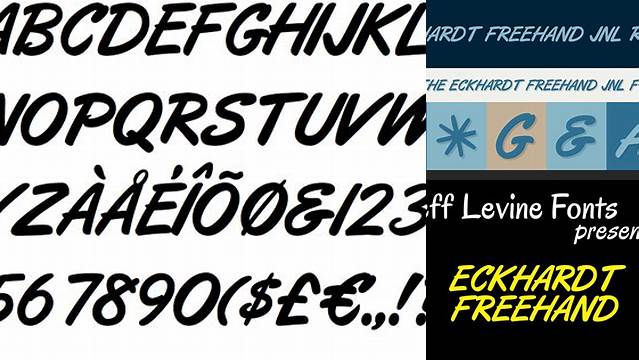
Hey guys! Are you on the hunt for the Eckhardt Freehand JNL font download? You've landed in the right place! This article is your one-stop shop for everything you need to know about this awesome font. We'll dive deep into its features, how to snag it, and even explore some cool ways to use it. Get ready to unleash your inner designer with this fantastic font!
Eckhardt Freehand JNL: What Makes It Special?
Alright, let's get down to brass tacks. Eckhardt Freehand JNL is a font that's got serious character. It's got that cool, hand-drawn vibe that instantly adds a touch of personality to anything you're working on. Think of it as the font equivalent of a perfectly worn-in leather jacket – it just oozes style. The beauty of this font lies in its imperfections, the slight variations in each letter that give it that authentic, human touch. In a world of clean, crisp fonts, Eckhardt Freehand JNL stands out like a bold statement. It's the kind of font that makes you want to grab a pen and start creating. It's perfect for projects where you want to convey a sense of creativity, playfulness, or a touch of vintage charm. From logos and branding to posters, social media graphics, and even website headings, this font adds a unique flair that's hard to ignore. Its versatility allows it to be used in a wide range of applications, making it a valuable asset for designers and creatives alike. Imagine the possibilities! You could use it for a coffee shop's menu, a quirky blog's header, or even a cool design for a skateboard deck. The options are truly endless. The font's informal nature makes it incredibly inviting, making it a great choice for projects aimed at a younger audience or those seeking a relaxed and approachable aesthetic. The way the letters flow and connect creates a visual rhythm that's both engaging and easy on the eyes. It's a font that invites you in and encourages you to explore the message being conveyed. Eckhardt Freehand JNL is more than just a font; it's a statement. It's a way to inject personality and character into your designs, setting them apart from the crowd. If you're looking to add a touch of uniqueness and handcrafted charm to your work, this font is definitely worth considering. It's a fantastic tool for bringing your creative visions to life. With its hand-drawn aesthetic and versatile application, Eckhardt Freehand JNL has quickly become a favorite among designers seeking to create visually appealing and engaging content. Its ability to capture attention and convey a specific message makes it a go-to choice for a variety of projects. So, if you want to add that special touch, this font could be your best friend! It's time to embrace the imperfections and let your creativity flow.
The Appeal of Hand-Drawn Fonts
So, why are hand-drawn fonts like Eckhardt Freehand JNL so popular? Well, guys, it's all about that human touch. In a digital world, these fonts offer a refreshing break from the often-sterile perfection of computer-generated typefaces. They feel more organic, more relatable. They evoke a sense of authenticity and creativity that resonates with people. Hand-drawn fonts have a way of injecting personality into a design, making it feel more approachable and less corporate. They add a touch of whimsy and charm that can be hard to resist. Think about it: when you see something handwritten, it feels more personal, doesn't it? Hand-drawn fonts tap into that same feeling, making your audience feel like they're connecting with a real person. They're perfect for projects where you want to convey a sense of warmth, creativity, or playfulness. They can also add a touch of vintage flair, giving your designs a timeless appeal. The slight imperfections and unique character of each letter create a visual rhythm that's both engaging and easy on the eyes. They're a great way to make your designs stand out from the crowd and leave a lasting impression. These fonts are like a breath of fresh air in a world saturated with digital perfection. They're a reminder that creativity and individuality are still highly valued. Whether you're designing a logo, a poster, or a social media graphic, a hand-drawn font can help you create a design that truly stands out. So, embrace the imperfections, and let your creativity flow. Choose the right hand-drawn font, and watch your designs come alive!